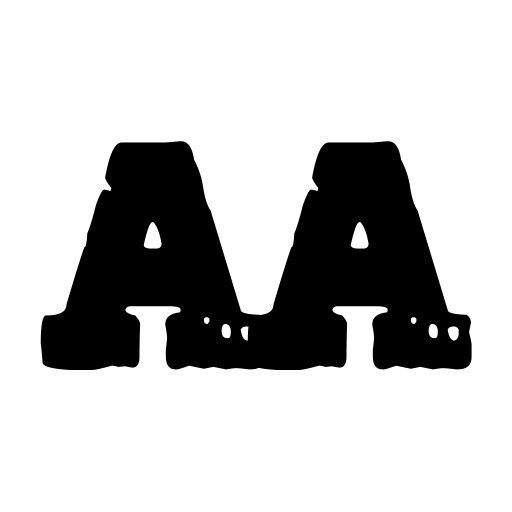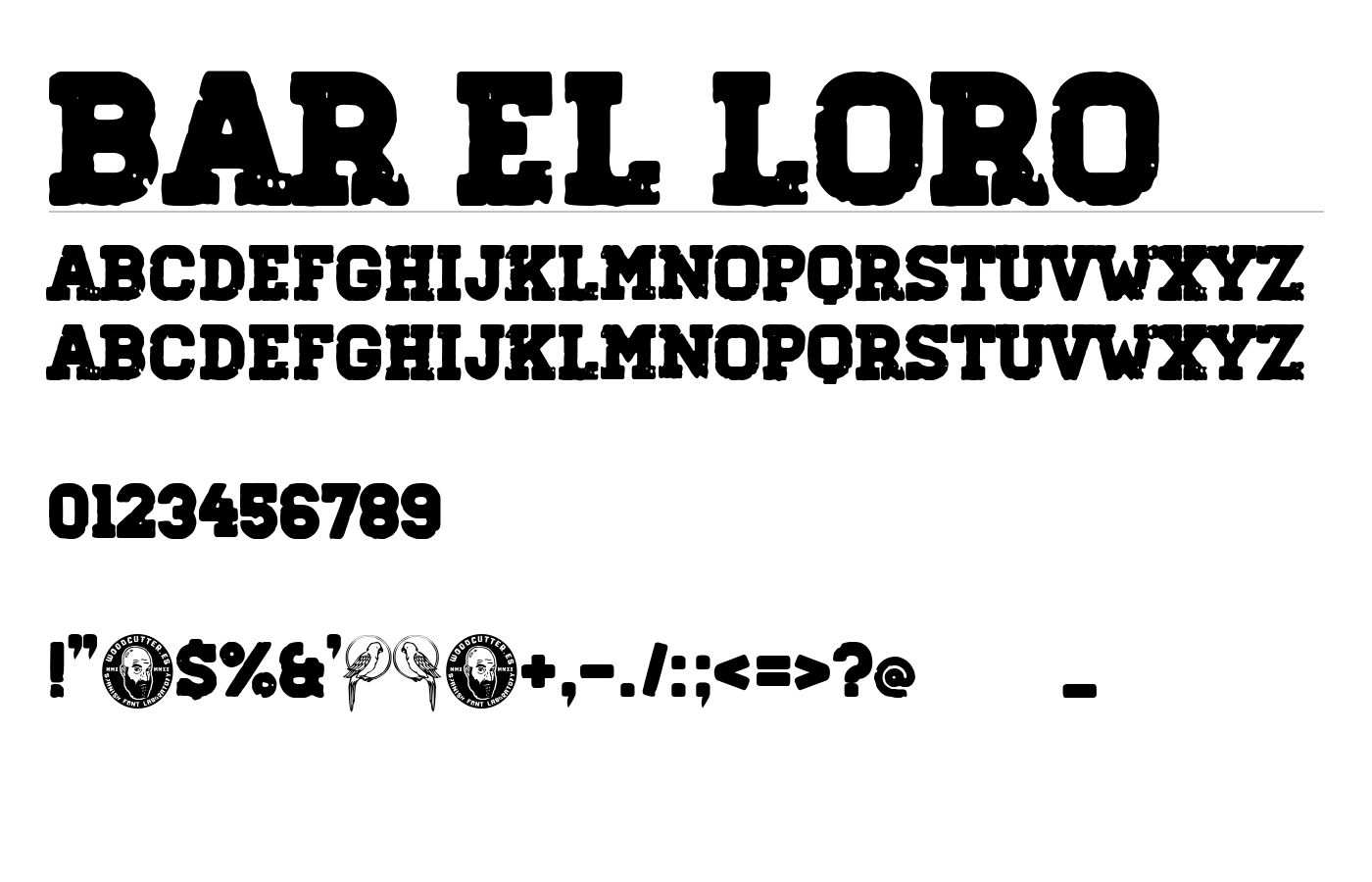
Bar el Loro is a bold slab serif font with a strong, vintage western vibe, featuring thick, blocky letterforms and a distressed texture that adds character and an aged feel. Its sturdy, condensed shapes with noticeable irregularities give it a rugged, handcrafted style perfect for eye-catching headlines, logos, and designs that want to convey a lively, rustic, or retro mood. This font works especially well in branding and posters where a bold, memorable impact is needed.
Bar el Loro Font
About Bar el Loro Font